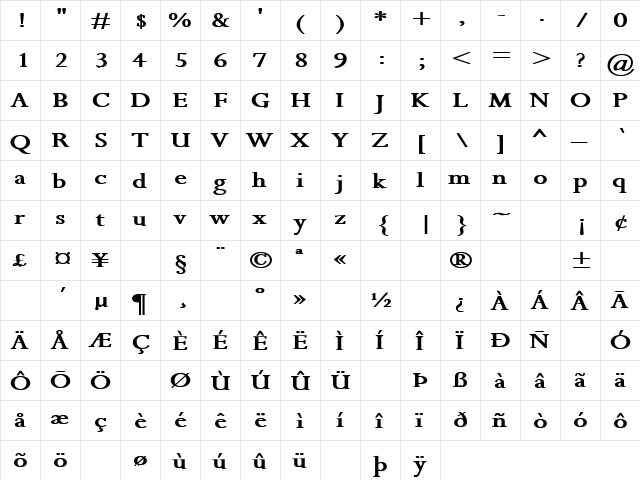
Sweet Emotion 4 Bold
Design Context for Sweet Emotion 4 Typeface
Sweet Emotion 4 offers clean, dependable letterforms without strong stylistic allegiance, making it a practical choice for designers who need flexibility. Its bold stroke weight gives it real presence on the page.